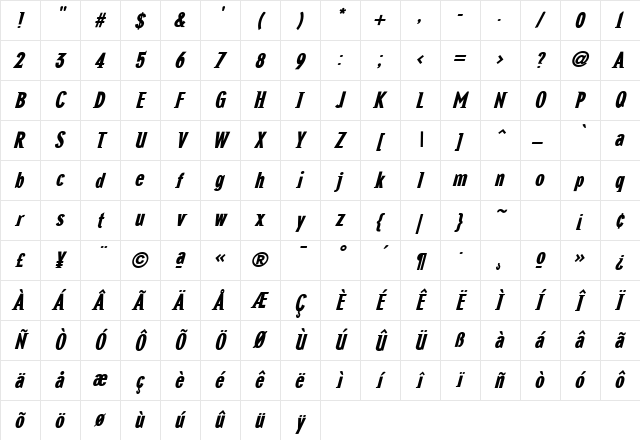
NewGlobalHeavy Italic
Foundry: Stefan Hattenbach/MAC Rhino. - Production assistance: Psy/Ops SF
Design Context for NewGlobalHeavy
NewGlobalHeavy is a composed and adaptable typeface that performs quietly and consistently across a wide range of design contexts. The slanted form adds forward momentum and visual energy.
Pro Tip: Use NewGlobalHeavy for emphasis, pull quotes, and subheadings where its slanted energy can add rhythm to the layout.